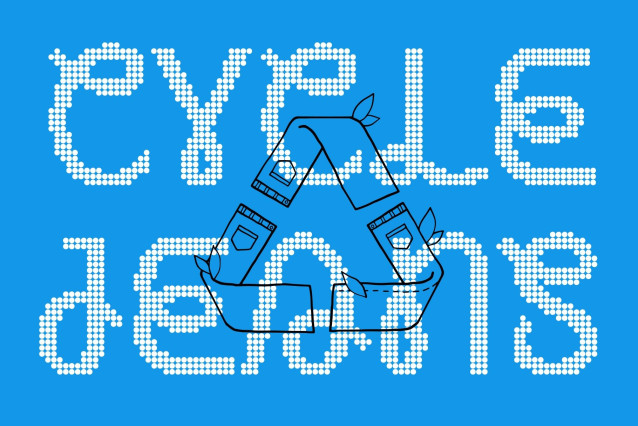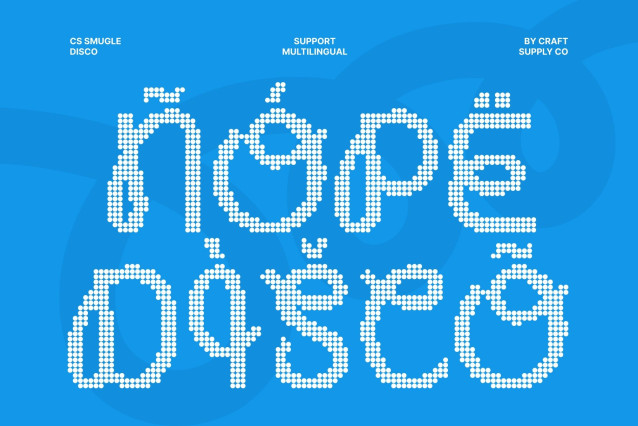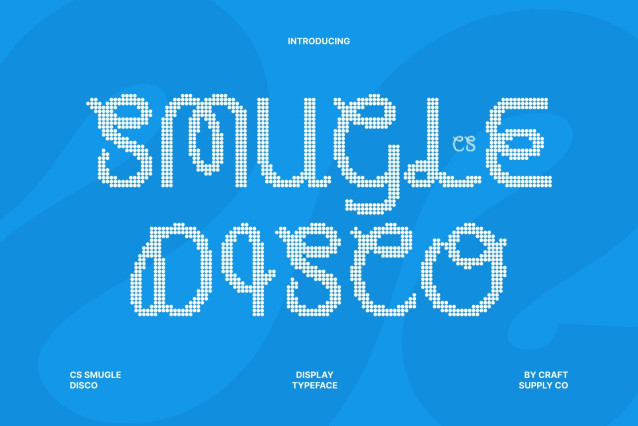
CS Smugle Disco Font
CS Smugle Disco – Modern Experimental Sans Serif with Quirky Creativity
Distinctive Design with Playful Energy
This is a modern experimental sans serif font that stands out through its quirky and cheerful personality. Each letter is uniquely crafted, giving typography a fresh, inventive, and dynamic feel enhanced by a lively disco texture that adds sparkle and movement.
Innovative Letterforms for Creative Projects
Built with experimentation at its core, the font blends modern sans serif clarity with playful irregularities. Its distinctive forms inject originality and energy into every word, making it perfect for designers who want to push typographic boundaries and create bold visual statements.
Perfect for Playful Branding and Visual Impact
From posters and logos to editorial layouts and creative branding, this font captures attention instantly. Its unconventional shapes and upbeat character bring vibrancy and personality to any composition.